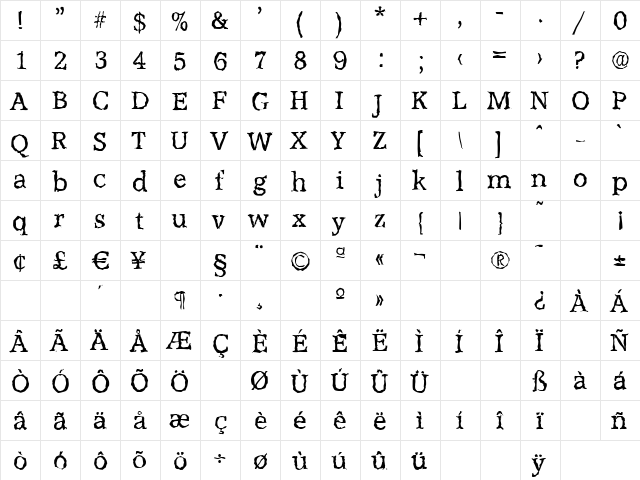
MichaelBeckerRandom Regular
Design Context for MichaelBeckerRandom Typeface
MichaelBeckerRandom takes a measured approach to typography — its balanced proportions and neutral character make it a reliable workhorse for both digital and print work.